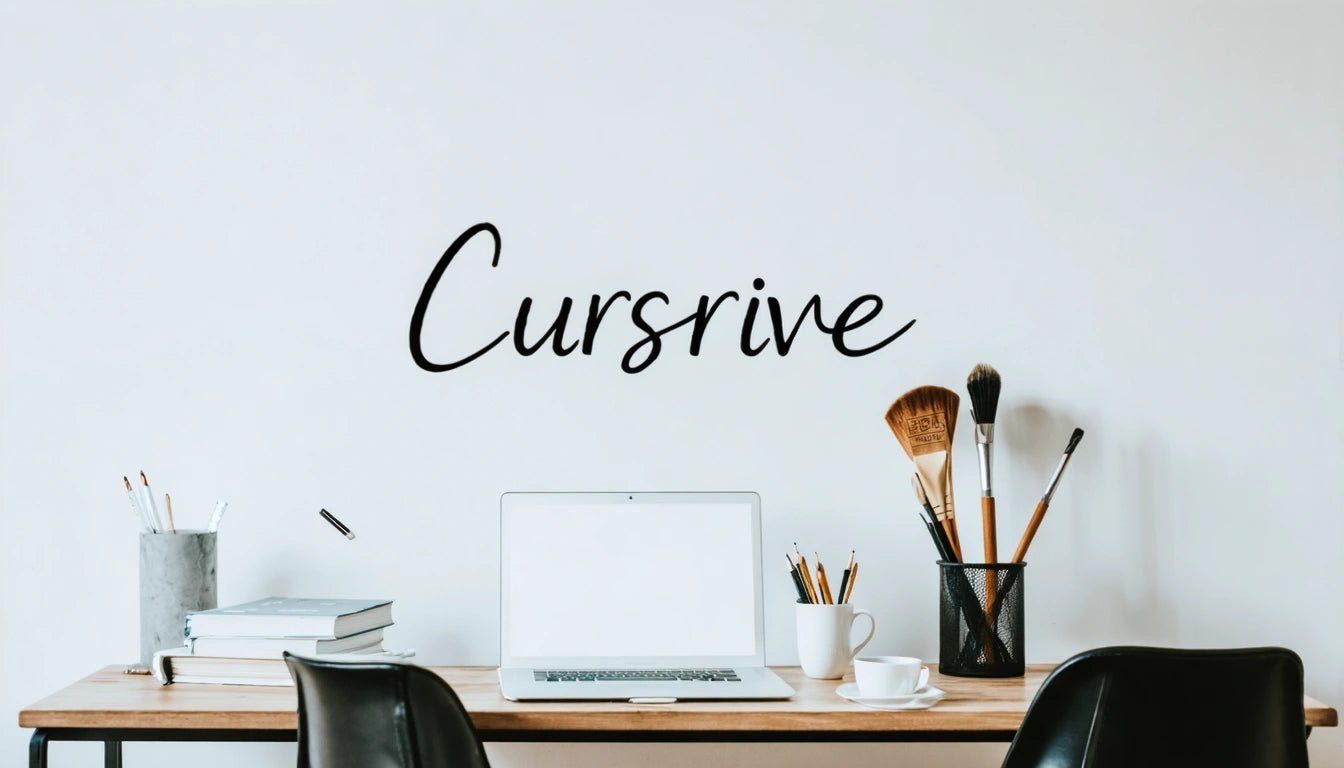
Exploring the Variety of Cursive Fonts and Styles
Cursive fonts add elegance and personality to designs, inviting viewers with their flowing, connected letterforms. With numerous different cursive fonts available today, understanding their distinct characteristics helps designers and casual users alike select the perfect style for their projects. From traditional calligraphic scripts to modern interpretations, the world of cursive typography offers remarkable diversity and creative potential.
Understanding Cursive Fonts: Origins and Evolution
Cursive writing emerged from the practical need for faster handwriting, with connected letters allowing scribes to write without lifting their pen frequently. The word "cursive" derives from the Latin "cursivus," meaning flowing or running. Over centuries, different types of cursive fonts developed across cultures, each with unique characteristics and applications.
Early cursive styles evolved from formal handwriting methods taught in schools and used in official documents. As printing technology advanced, typographers created cursive typefaces that mimicked handwritten text while maintaining consistency and readability. Today's digital cursive fonts range from faithful reproductions of historical scripts to innovative interpretations that blend traditional elements with contemporary design sensibilities.
Major Categories of Cursive Fonts
When exploring different styles of cursive fonts, it's helpful to understand the major categories and their distinctive features. These classifications provide a framework for identifying and selecting the appropriate style for specific projects.
Formal Cursive Styles
Formal cursive fonts exhibit precise, structured letterforms with consistent slants and carefully controlled strokes. These styles often feature:
- Uniform letter height and spacing
- Consistent slant angle (typically 52-55 degrees)
- Deliberate, elegant connecting strokes
- Higher contrast between thick and thin lines
Examples include Copperplate, Spencerian, and English Roundhand, which are frequently used for wedding invitations, certificates, and formal announcements where elegance is paramount.
Casual and Contemporary Cursive
Casual cursive styles present a more relaxed, approachable aesthetic. These fonts often incorporate:
- Variable letter heights and inconsistent slants
- Looser, more natural-looking connections
- Less contrast between stroke widths
- More playful letterforms and flourishes
Modern casual cursive fonts like Brusher, Sofia, and Pacifico have gained popularity in branding, packaging, and social media graphics. Their friendly appearance makes them ideal for projects targeting younger audiences or conveying warmth and approachability.
Script and Calligraphic Cursive
Script cursive fonts emulate the flowing quality of calligraphic handwriting. These types of cursive fonts typically feature:
- Dramatic thick-to-thin transitions
- Elaborate swashes and flourishes
- Distinctive entry and exit strokes
- More artistic, expressive character
Examples like Edwardian Script, Snell Roundhand, and Bickham Script are often used for luxury branding, high-end packaging, and special occasions. In certain industries, such as premium rolling paper and pre-rolled cone manufacturing, these elegant scripts help communicate quality and tradition through sophisticated typography.
Highlight: When selecting among different types of cursive fonts, consider both the emotional response you want to evoke and the practical requirements of your medium. Digital displays may require more legible cursive styles than print applications.
Popular Cursive Fonts for Different Projects
The popularity of specific cursive fonts often reflects current design trends and practical applications. According to surveys of the best cursive fonts, these styles consistently rank among designers' favorites:
- Monoline Cursive: Fonts like Quickpen and Allura offer consistent stroke width for clean, modern applications
- Brush Cursive: Dancing Script and Brush Script mimic hand-painted lettering with natural texture
- Vintage Cursive: Great Vibes and Pinyon Script evoke nostalgic, classic aesthetics
- Modern Cursive: Sacramento and Grand Hotel blend traditional cursive elements with contemporary proportions
Each of these which fonts are cursive options brings unique characteristics that make them suitable for specific contexts, from formal invitations to casual social media graphics.
Choosing the Right Cursive Font for Your Needs
Selecting the appropriate cursive style requires consideration of several factors:
- Legibility: Some cursive fonts prioritize decorative qualities over readability. For body text or small sizes, choose more legible options.
- Context: Match the font's personality to your message and audience expectations.
- Technical constraints: Consider how the font will render across different devices and media.
- Pairing potential: Evaluate how the cursive font complements other typefaces in your design system.
For comprehensive projects, exploring different types of fonts beyond just cursive can create effective contrast and hierarchy in your designs.
Implementing Cursive Fonts in Various Applications
The practical application of cursive fonts varies by medium and purpose:
- Web Design: Consider loading times and fallback options when using cursive webfonts
- Print Materials: Test print quality at intended sizes to ensure legibility
- Branding: Ensure cursive elements remain consistent across all touchpoints
- Social Media: Adapt cursive styles to work within platform constraints
When implementing cursive fonts digitally, pay attention to proper kerning and leading adjustments, as these fonts often require more space than standard typefaces to maintain legibility and visual appeal.
The Future of Cursive Typography in Digital Design
As digital typography evolves, cursive fonts continue to adapt to new technologies and design trends. Variable font technology now allows single font files to contain multiple weights and styles, creating more dynamic and responsive cursive experiences. Meanwhile, AI-powered tools are beginning to generate custom cursive fonts based on specific parameters or even samples of handwriting.
The enduring appeal of cursive typography lies in its human quality. Even as technology advances, designers continue to value the warmth and personality that different cursive fonts bring to digital interfaces, creating a bridge between traditional handwriting and modern digital communication.
Whether you're selecting from established classics or exploring cutting-edge variable cursive fonts, understanding the rich variety of cursive styles empowers you to make informed typographic choices that enhance your visual communication and connect with your audience on both practical and emotional levels.